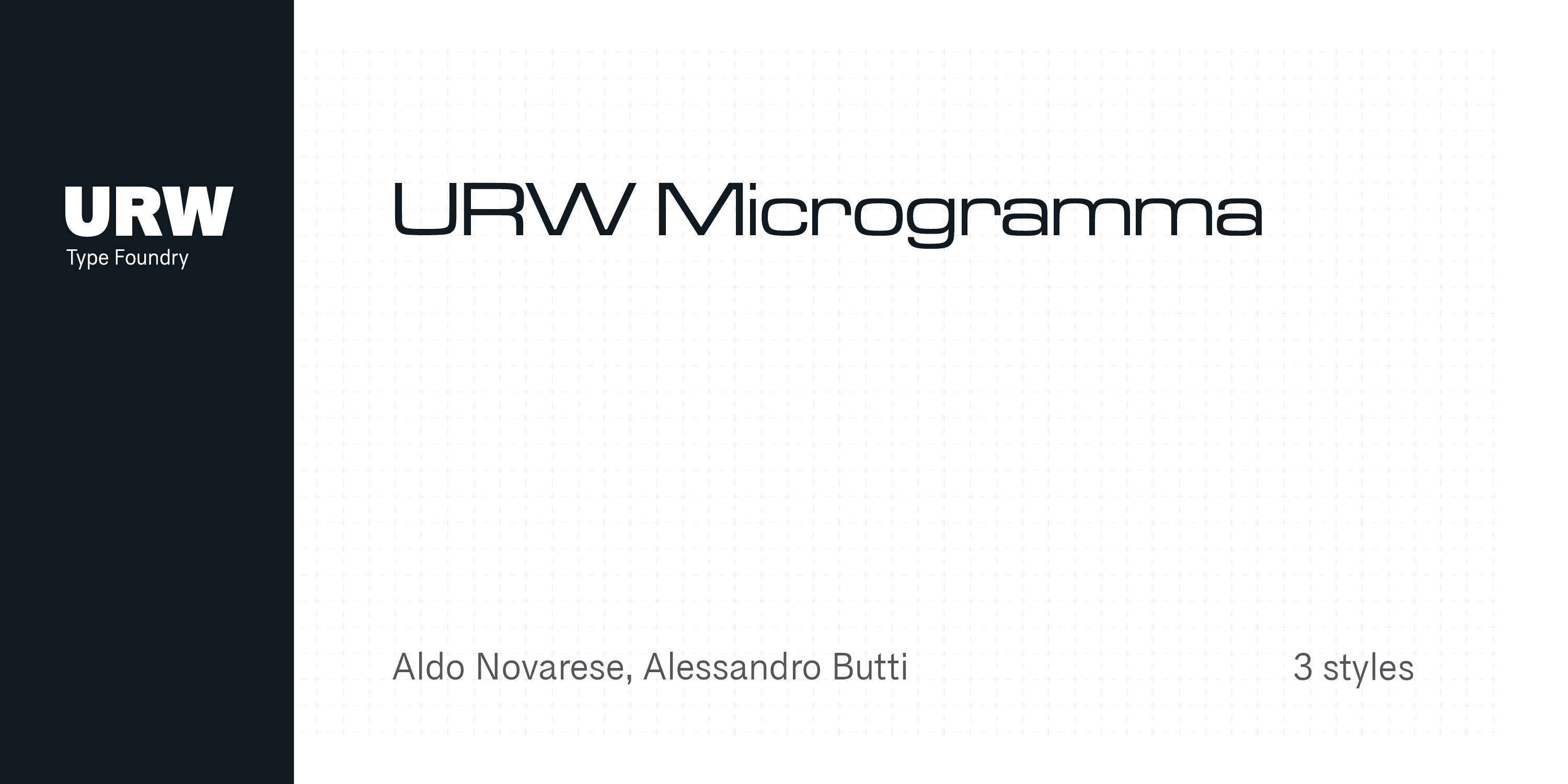
Microgramma Font is perfectly suited for science fiction movie titles, futuristic branding projects, technology company logos, space exploration campaigns, automotive industry advertising, electronic music album covers, gaming interfaces, architectural signage, industrial design presentations, and modern corporate identities that require a distinctly futuristic and technological aesthetic.
What makes Microgramma Font so exciting is its legendary status as the quintessential futuristic typeface that has defined the visual language of science fiction and technology for decades. This font features distinctive squared letterforms with unique proportional relationships that create an unmistakably modern and technological appearance. Its geometric construction and unconventional character shapes immediately evoke associations with space travel, advanced technology, and forward-thinking innovation, making it the perfect choice for brands wanting to communicate cutting-edge capabilities and futuristic vision.
The Microgramma Font family typically includes regular and bold weights, with some versions offering light, medium, and extended variations. Each style maintains the characteristic squared geometry and distinctive proportions that make this typeface instantly recognizable and highly effective for creating memorable brand impressions.
Creative professionals consistently choose Microgramma Font Free Download for projects that require authentic sci-fi character and technological credibility. Its cultural associations with space exploration, computer technology, and futuristic design make it particularly valuable for brands operating in high-tech industries or targeting audiences interested in innovation and progress.
The font's distinctive character shapes and proportional relationships make it exceptionally effective for display applications where immediate visual impact and brand recognition are essential. Microgramma Font performs best in larger sizes where its unique geometric details and unconventional letterform proportions can be fully appreciated and recognized.
Typography historians appreciate the font's significant role in shaping visual culture and its continued influence on contemporary sci-fi and technology-themed design. The font's ability to instantly communicate futuristic concepts makes it invaluable for establishing specific aesthetic contexts and emotional responses.
For entertainment industry designers, Microgramma Font offers authentic sci-fi credibility that helps establish genre expectations and audience engagement. Its association with classic science fiction films and television shows provides immediate cultural context and emotional connection.
Brand identity designers frequently select this font for clients in aerospace, technology, gaming, and entertainment sectors where futuristic imagery directly supports marketing objectives and brand positioning. Its iconic status helps brands tap into established cultural associations with innovation and progress.
Digital interface designers particularly value Microgramma Font for gaming applications, tech startups, and digital products where establishing a futuristic user experience is crucial for market differentiation and user engagement. Its geometric precision translates well to screen-based applications.